The Alphabet’s Front-Page W
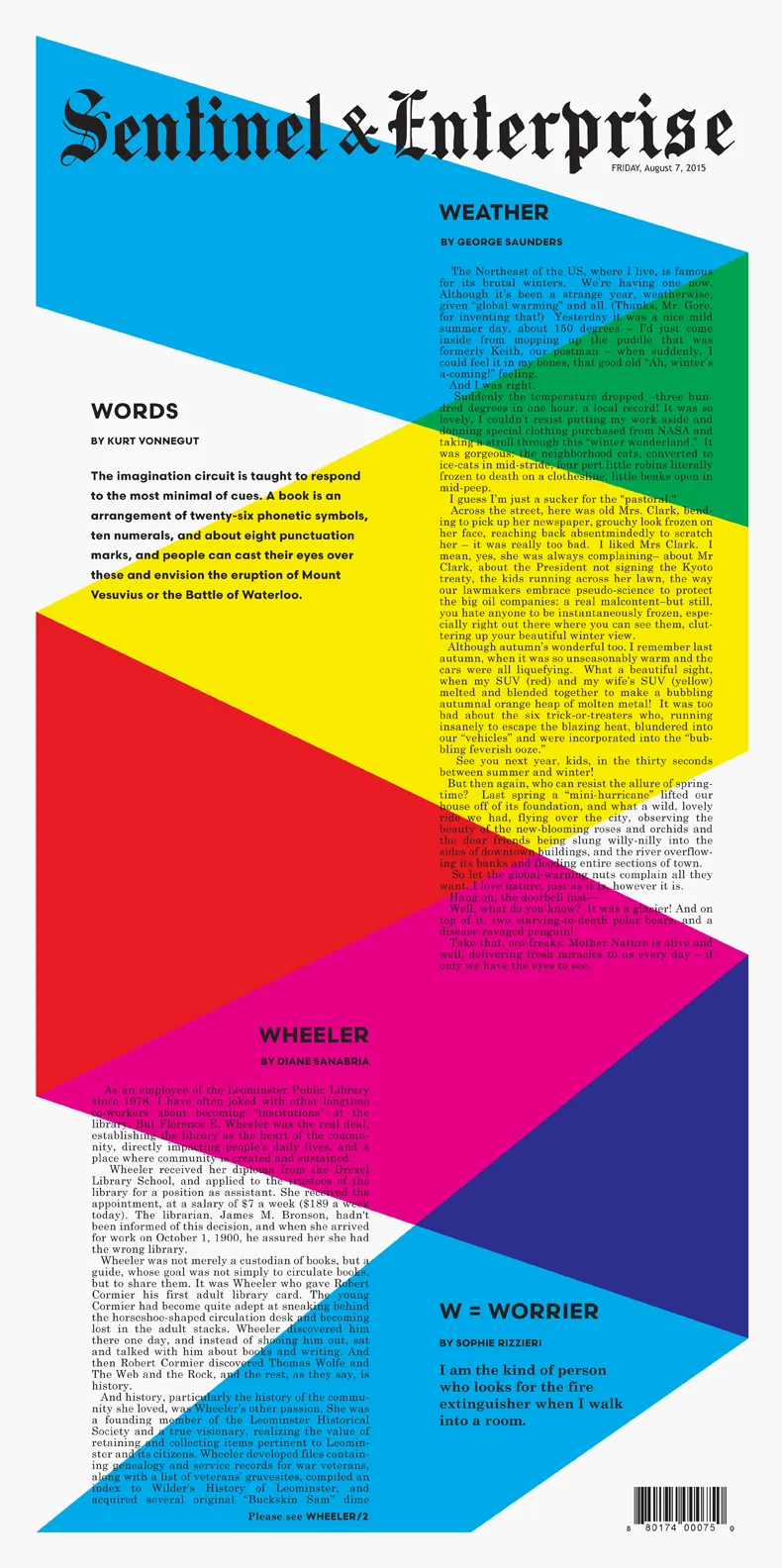
Today’s Sentinel & Enterprise features a bright rendition of the letter W by our own Nicole Dotin. For The Alphabet project, artist Anna Schuleit Haber has been taking over the front page of Fitchburg, Masachusetts’ daily newspaper, in collaboration with designers from around the world. Learn more about the Alphabet project.